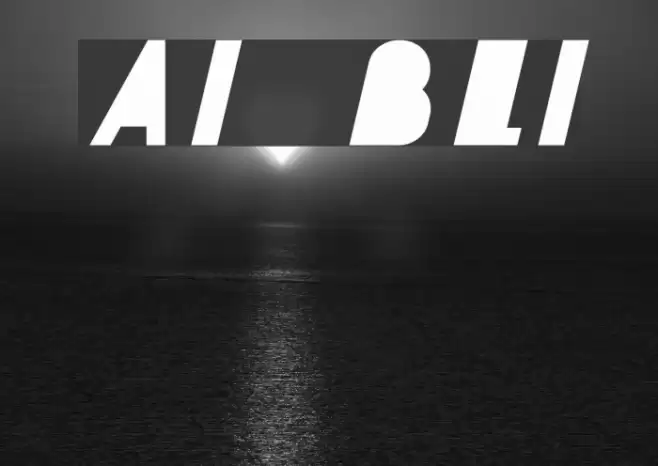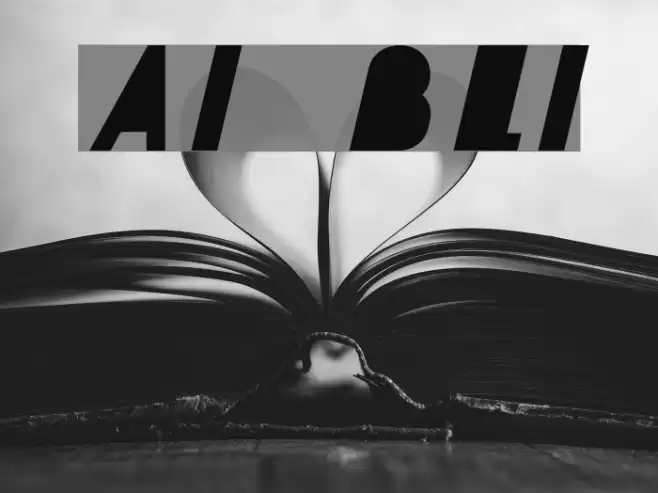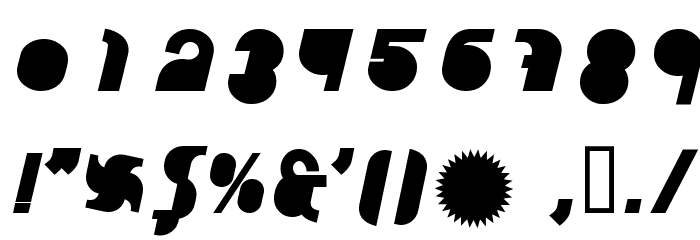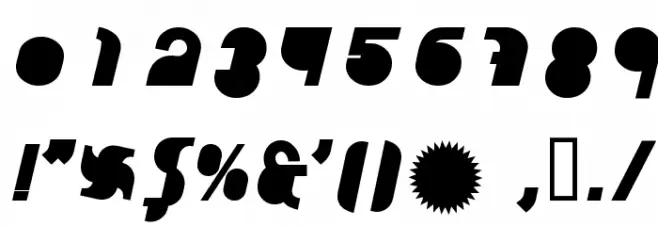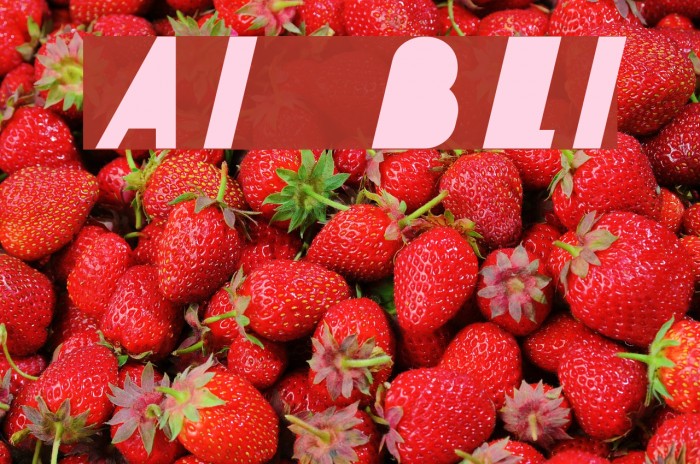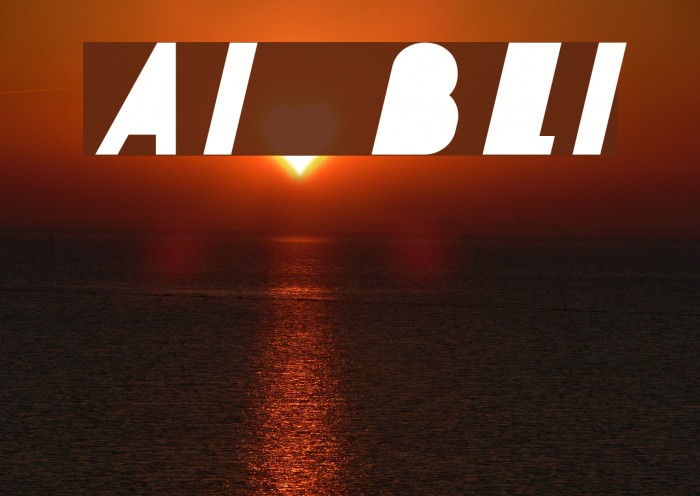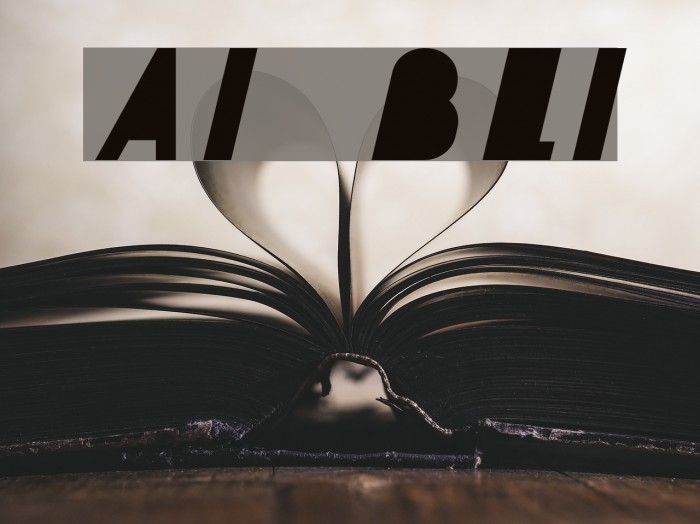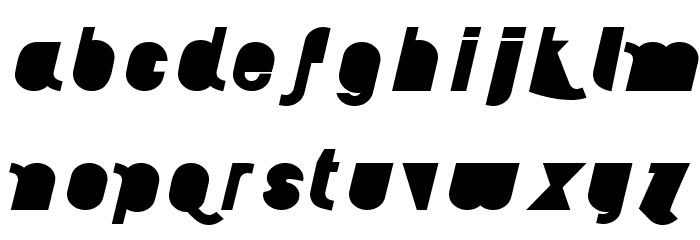
AI kelso BLI Font
AI kelso BLI Description
This bold and dynamic font features a unique, modern design with a strong emphasis on geometric shapes and sharp angles. The characters are heavily stylized, with a distinct slant that adds a sense of motion and energy. The uppercase letters are particularly striking, with wide, bold strokes that command attention. The lowercase letters maintain the same boldness, ensuring consistency throughout the typeface. Numbers and special characters are equally bold and stylized, making them stand out. This font is ideal for projects that require a strong visual impact and a contemporary feel.
A bold, modern font with geometric shapes and sharp angles, exuding energy and motion from Sans Serif fonts.